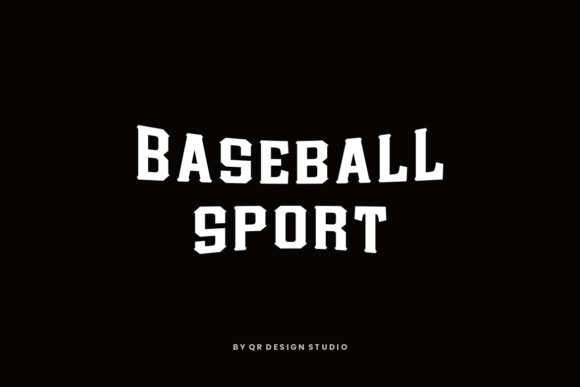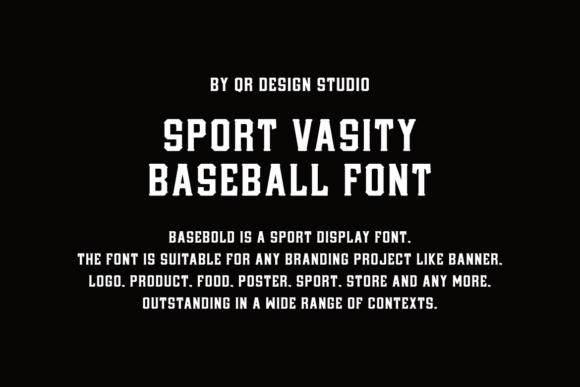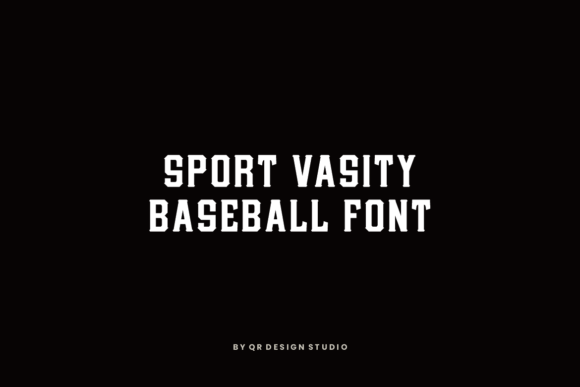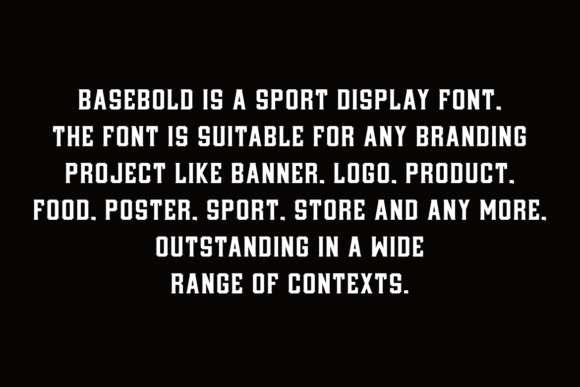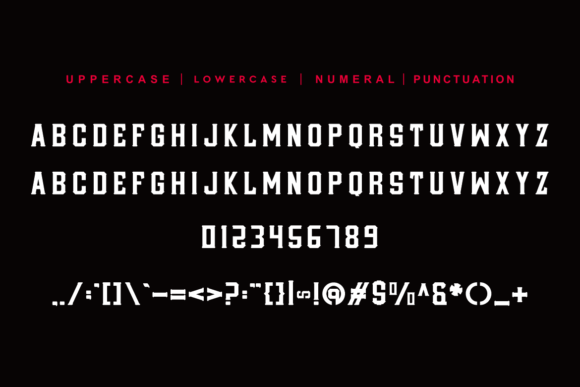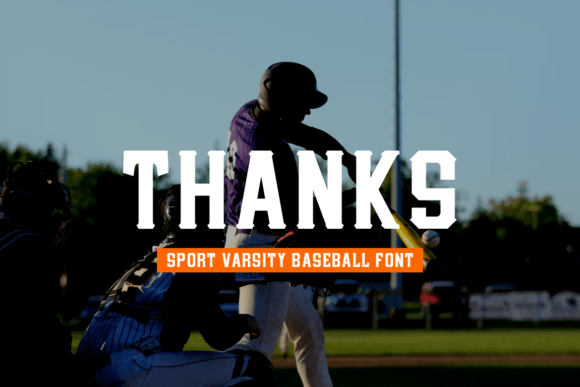
Introducing Basebold: The Bold and Assertive Serif Font
In the world of typography, a font can make or break a design. A well-chosen font can elevate a creation from ordinary to extraordinary, while a poorly chosen one can detract from the overall impact. For designers and crafters looking to add a bold and assertive touch to their work, look no further than Basebold, a serif font that is sure to become an incredible asset to your font library.
The Power of Basebold
Basebold is a bold and assertive serif font that is designed to make a statement. Its strong, confident lines and classic serif details make it perfect for a wide range of applications, from headings and titles to body text and more. Whether you’re working on a branding project, a website, or a print design, Basebold has the potential to elevate your creation and make it stand out from the crowd.
Key Features of Basebold
- Bold and Assertive: Basebold is a font that demands attention. Its bold lines and assertive presence make it perfect for headings, titles, and other applications where you want to make a statement.
- Classic Serif Details: Despite its bold and modern aesthetic, Basebold is a serif font that retains classic details and elegance. This makes it perfect for designs that require a touch of sophistication and refinement.
- Versatile: Basebold is a versatile font that can be used in a wide range of applications, from digital designs to print materials. Its flexibility makes it a great addition to any font library.
- Easy to Read: Despite its bold aesthetic, Basebold is surprisingly easy to read, even at smaller sizes. This makes it perfect for body text and other applications where legibility is key.
Why Choose Basebold?
So why choose Basebold over other fonts? For starters, its bold and assertive presence makes it perfect for designs that require a strong, confident look. Additionally, its classic serif details and elegant lines make it a great choice for designs that require a touch of sophistication and refinement. Finally, its versatility and ease of use make it a great addition to any font library.
How to Use Basebold
Basebold is a font that can be used in a wide range of applications, from digital designs to print materials. Here are a few ideas to get you started:
- Headings and Titles: Use Basebold to create bold and attention-grabbing headings and titles. Its strong lines and assertive presence make it perfect for making a statement.
- Branding and Logos: Basebold is a great choice for branding and logos, particularly for companies that want to project a strong, confident image.
- Body Text: Despite its bold aesthetic, Basebold is surprisingly easy to read, even at smaller sizes. This makes it perfect for body text and other applications where legibility is key.
- Print Materials: Basebold is a great choice for print materials, including brochures, flyers, and posters. Its classic serif details and elegant lines make it perfect for designs that require a touch of sophistication and refinement.
In conclusion, Basebold is a bold and assertive serif font that is sure to become an incredible asset to your font library. Its strong, confident lines and classic serif details make it perfect for a wide range of applications, from headings and titles to body text and more. Whether you’re a designer or crafter looking to add a bold and assertive touch to your work, Basebold is a great choice. So why wait? Download Basebold today and start elevating your creations to the next level!